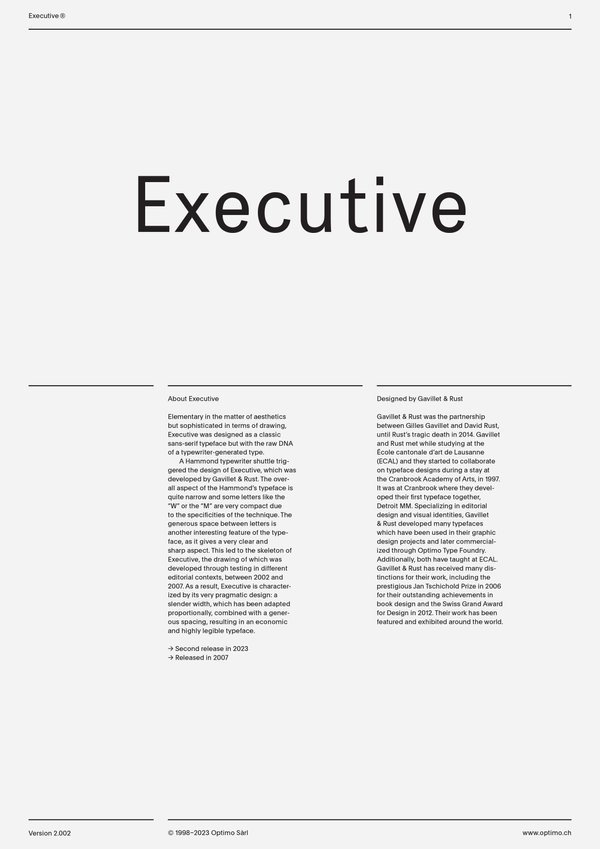
Executive
Case Sensitive Forms
This function formats the text in uppercase and adjusts spacing between all capital letters. It also applies the ‘Case Sensitive Forms’ feature which replaces certain characters with alternates that are better suited for all capital text, especially related to punctuation.
Contextual Alternates
This feature adapts the position of a glyph after its surrounding context. For instance, a dash placed between two uppercase letters or numbers will be replaced by an uppercase version of the dash, slightly higher. This feature is usually active by default in Adobe applications.
Alternate l
Big arrows
Alternate m
Tabular Lining Figures
Based on the proportions of the capitals, lining figures have an invariable height. With the combination of the tabular spacing format, the width of each numeral is uniformized. This feature is useful when numerals need to all lined up. It facilitates the reading of numbers set within columns or tables. As some applications don’t have access to this feature, proportional figures are set as the default choice.
Proportional Oldstyle Figures
Based on the design of the lowercase, oldstyle figures have varying ascenders and descenders. Like most of the letters, each number has an appropriate width based on its shape. The combination of oldstyle figures with proportional setting generate numerals perfectly adapted for text.
Tabular Oldstyle Figures
Based on the design of the lowercase, oldstyle figures have varying ascenders and descenders. With the combination of the tabular spacing format, the width of each numeral is uniformized. This feature is useful when numerals need to all lined up. It facilitates the reading of numbers set within columns or tables.
Fractions
With this feature, any numbers separated by a slash will automatically turn into a fraction. To fit in fraction configuration, numerals have been designed smaller and their weights have been adjusted to suit the typeface.
Lowercase math symbols
This feature activates alternate lowercase positioning of mathematical symbols.
This feature replaces any letter following a numeral with its matching superior letters. French language uses the ordinal indicators such as ‘er’ for 1er premier, while Spanish, Portuguese and Italian require the feminine and masculine ordinals ‘a,’ ‘o’ for 1º, 1ª. Ordinals are designed to match the weight of the typeface.
Slashed Zero
Originally created to avoid the confusion between the ‘0’ and the ‘O’, this feature substitutes all zeros in a selected text by a slashed form of the zero.
Multiply sign
This feature substitutes the letter “x” into the multiplication sign.
Numerators [numr]
This feature substitutes glyphs with their matching smaller alternates. The numerators are the same glyphs that are used to create fractions, their vertical position remains within the capital letters height. These glyphs are reduced in size and designed slightly heavier to keep them consistent with the rest of the font.
This feature substitutes glyphs with their matching smaller alternates and low position glyphs. The denominators are the same glyphs that are used to create fractions, their vertical position remains within the base line. These glyphs are reduced in size and designed slightly heavier to keep them consistent with the rest of the font.
Superscript/Superiors
This feature substitutes glyphs with their matching smaller alternates which are set slightly above the height of the capital letters. These glyphs are reduced in size and designed slightly heavier to keep them consistent with the rest of the font.
A Hammond typewriter shuttle triggered the design of Executive, which was developed by Gavillet & Rust. The overall aspect of the Hammond’s typeface is quite narrow and some letters like the “W” or the “M” are very compact due to the specificities of the technique. The generous space between letters is another interesting feature of the typeface, as it gives a very clear and sharp aspect. This led to the skeleton of Executive, the drawing of which was developed through testing in different editorial contexts, between 2002 and 2007. As a result, Executive is characterized by its very pragmatic design: a slender width, which has been adapted proportionally, combined with a generous spacing, resulting in an economic and highly legible typeface.